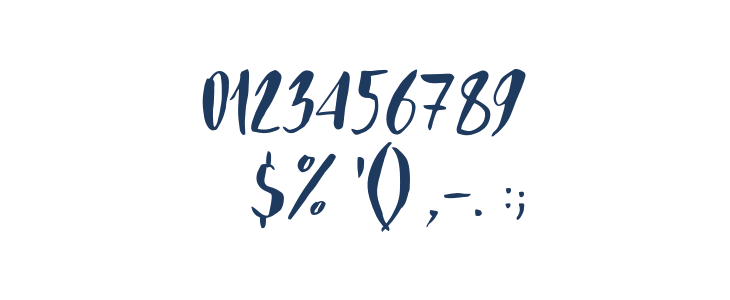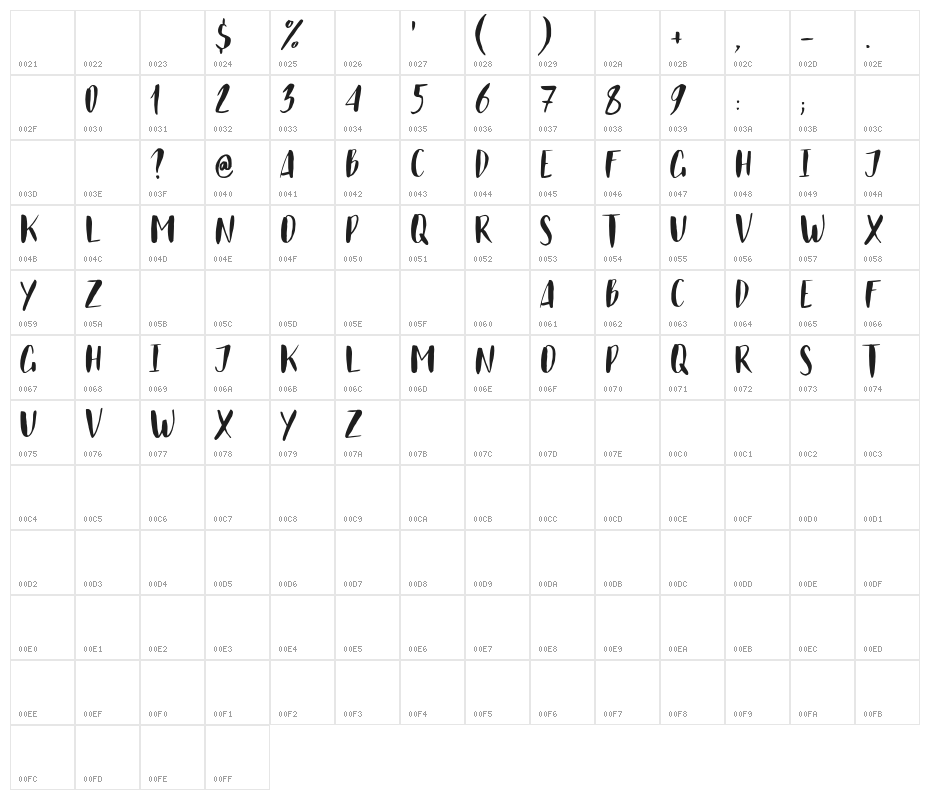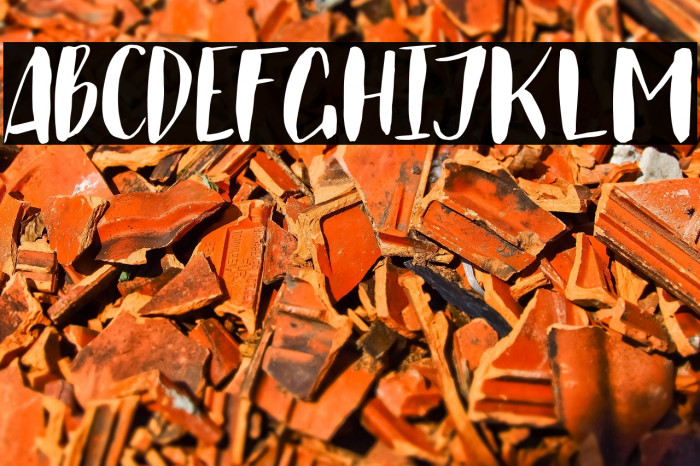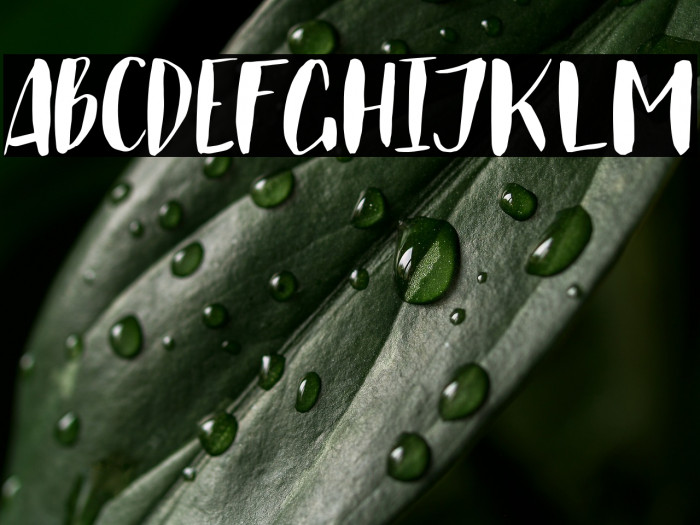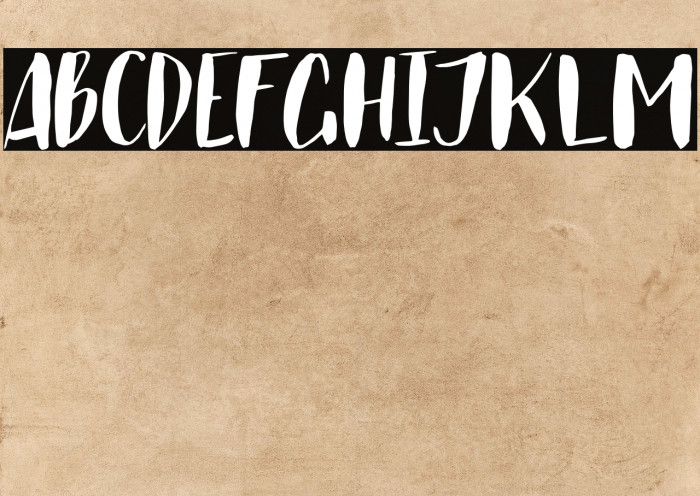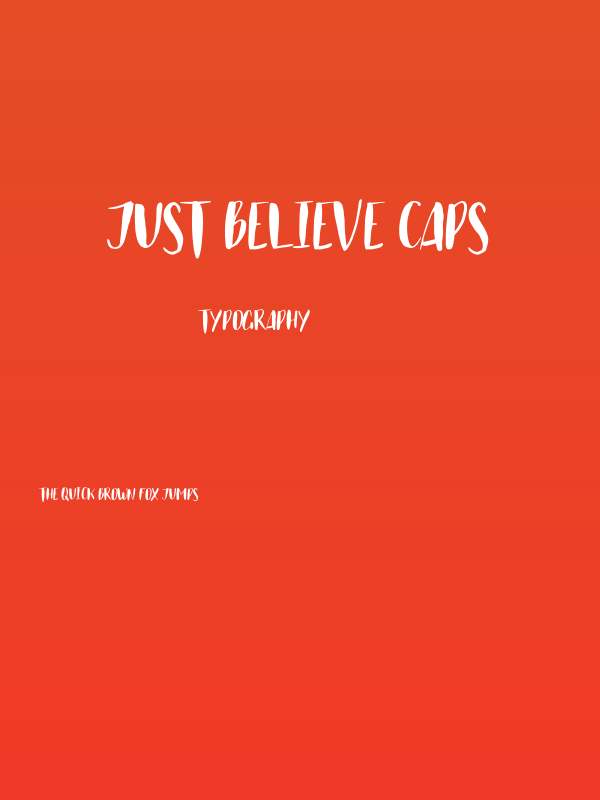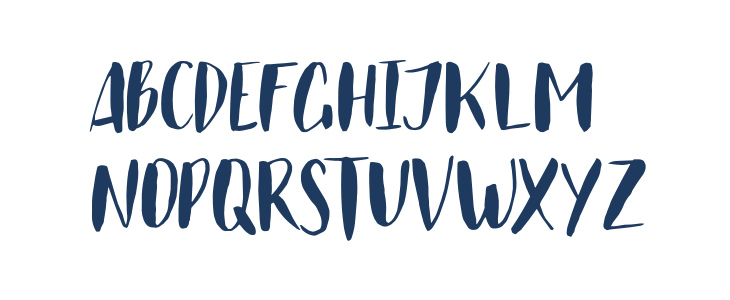
Just Believe Caps Font
Just Believe Caps Description
This font features a bold, handwritten style with a modern and artistic flair. The characters are crafted with a brush-like appearance, giving them a dynamic and energetic feel. The uppercase letters are consistent in height, while the lowercase letters maintain a playful and casual look. Numbers and special characters are designed to match the overall aesthetic, ensuring a cohesive appearance across all text. The strokes are thick and expressive, with a medium contrast that adds depth without compromising readability. This font is perfect for projects that require a personal touch, such as invitations, posters, or branding materials.
| Use Case | Headlines, Logos, Artistic projects |
| Proposed Projects | Ideal for invitations, posters, branding, and artistic projects. |